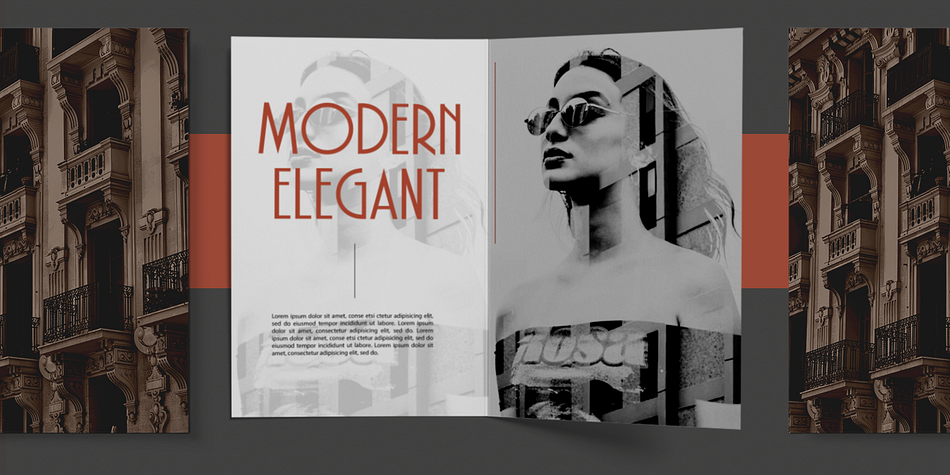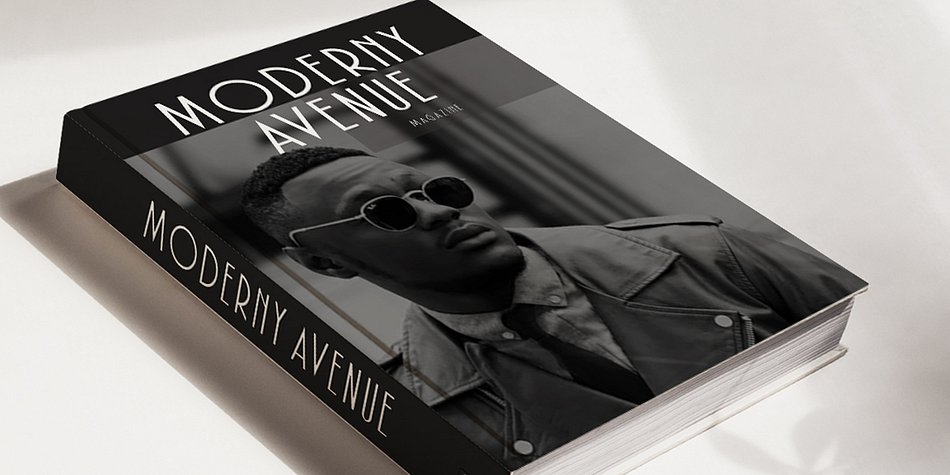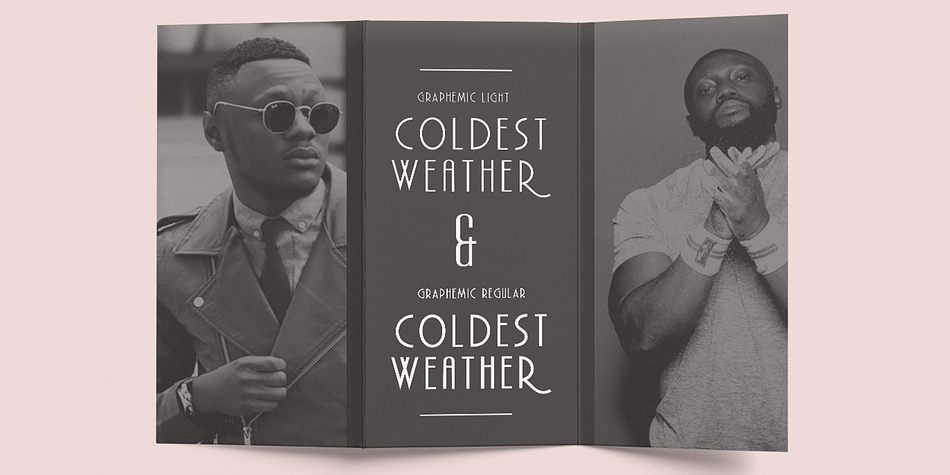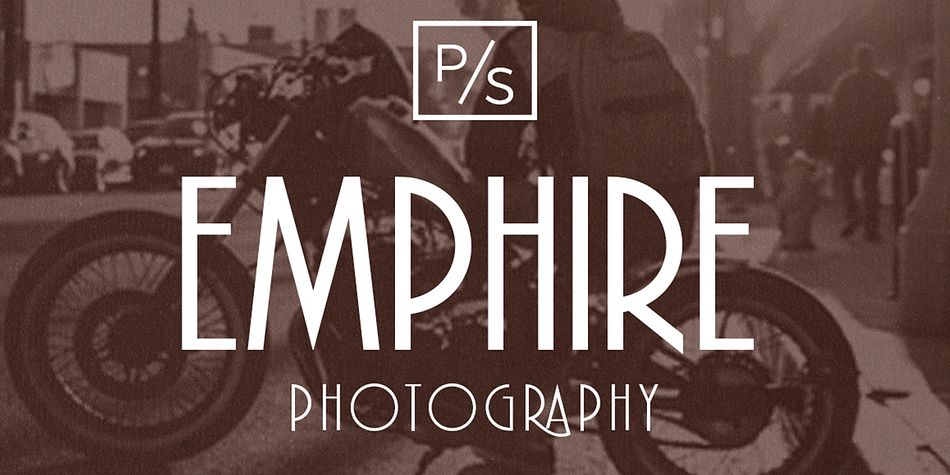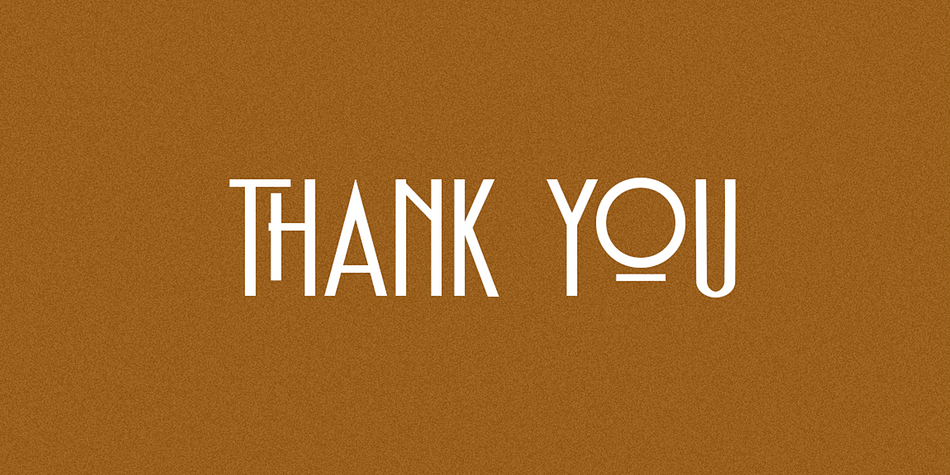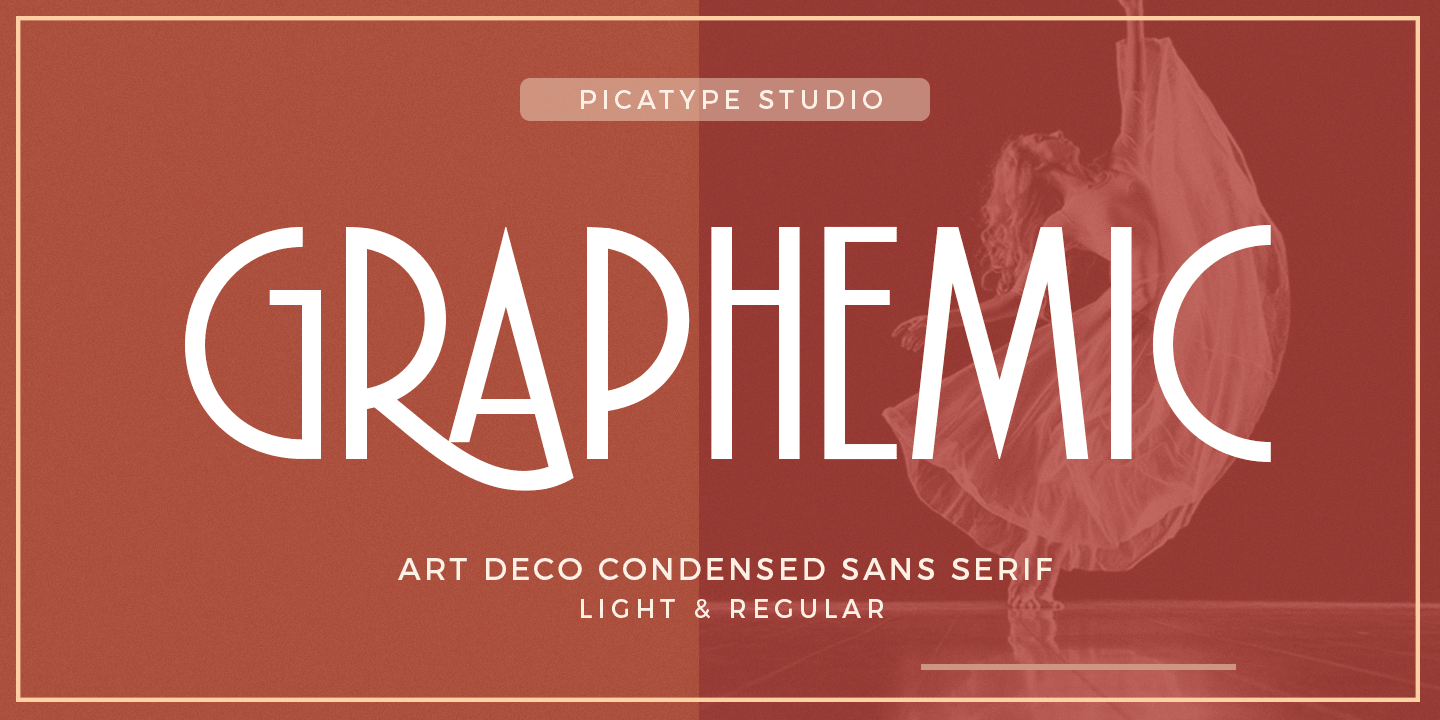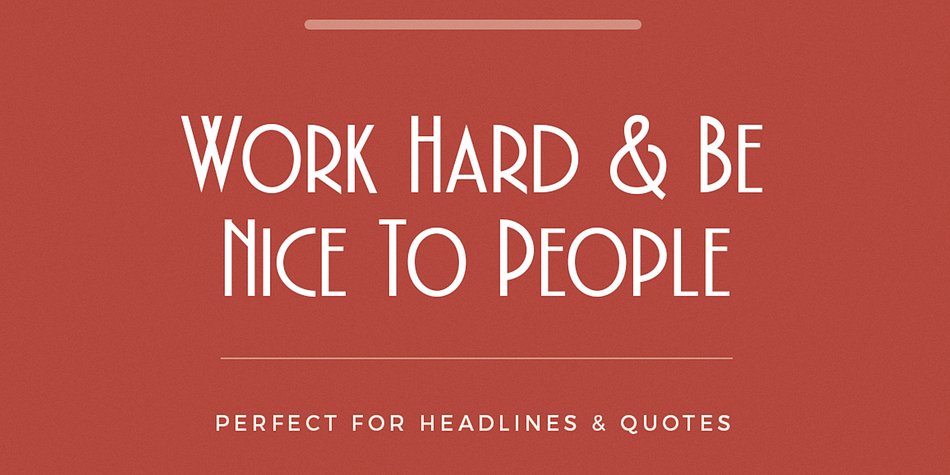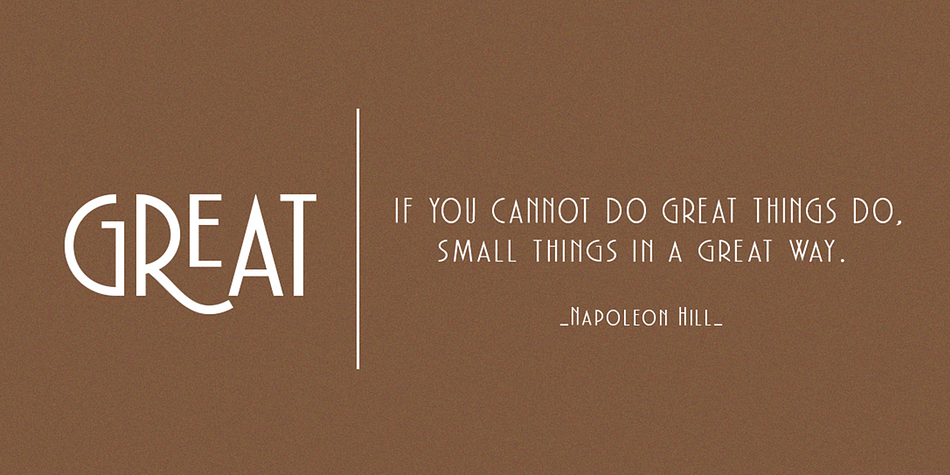
Designed by Indie Type, Graphemic is an art deco, display sans and sans serif font family. This typeface has two styles and was published by Picatype Studio.
Inspired by the medieval print design, the look of the sans serif typeface is strong and beautiful. It brings charming curves and satisfying patterns to traditional thick fonts. I like to use this font for printed material and titles - the height attracts attention and creates a visually attractive modern medieval feel. Graphemic fonts include two fonts - Regular & Light.
All offer broad language support, upper and lower case letters, extended numbers and punctuation.
Specifically suitable for: Posters, Blockbusters, films, trailers, headlines, titles, logos, branding, scripts, display & bold ‘goods’.